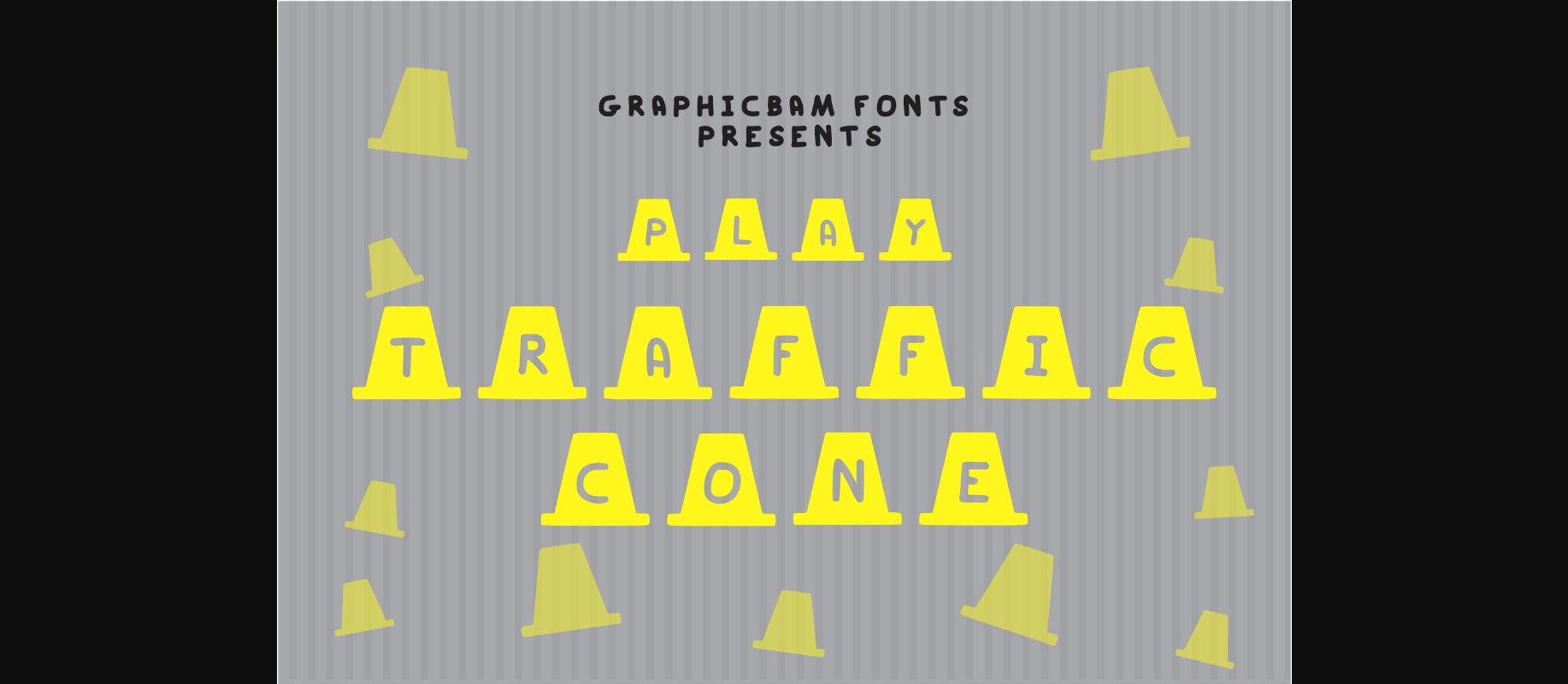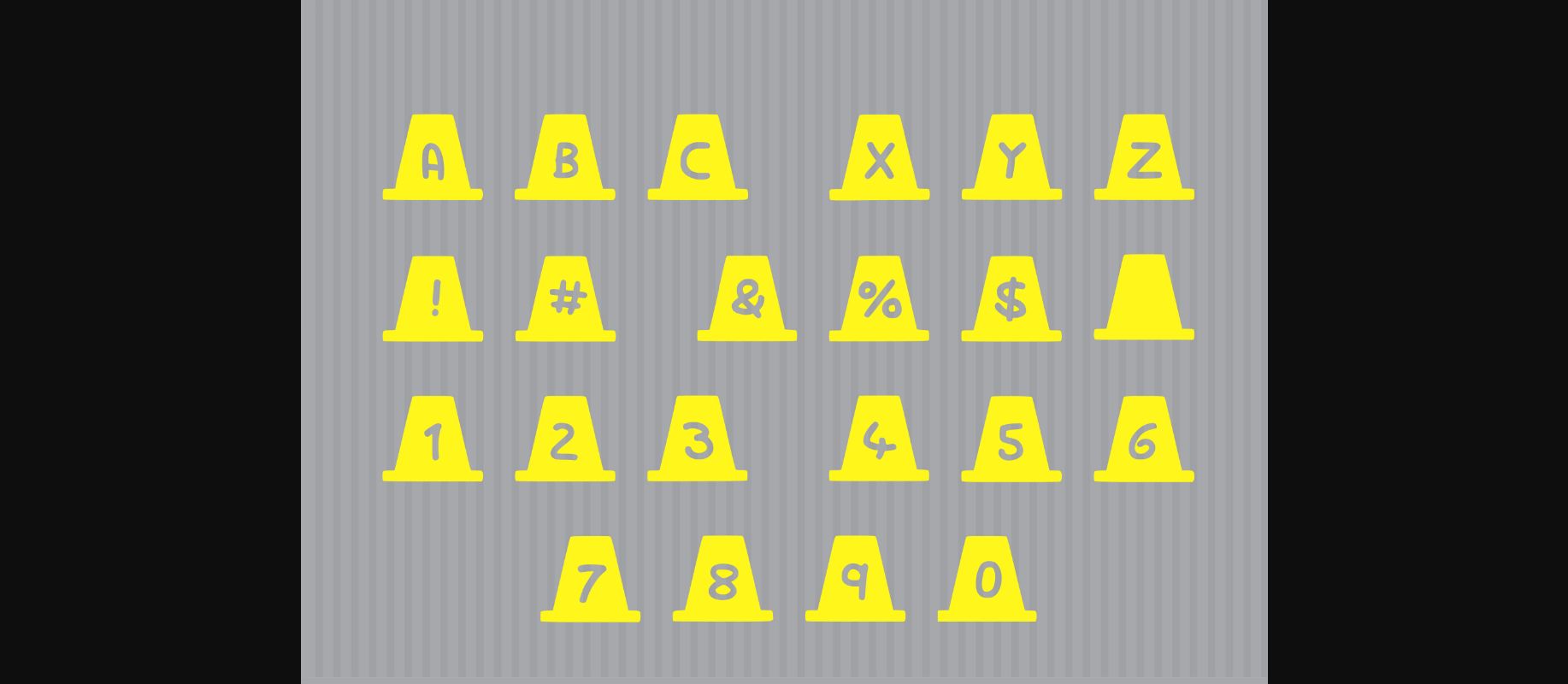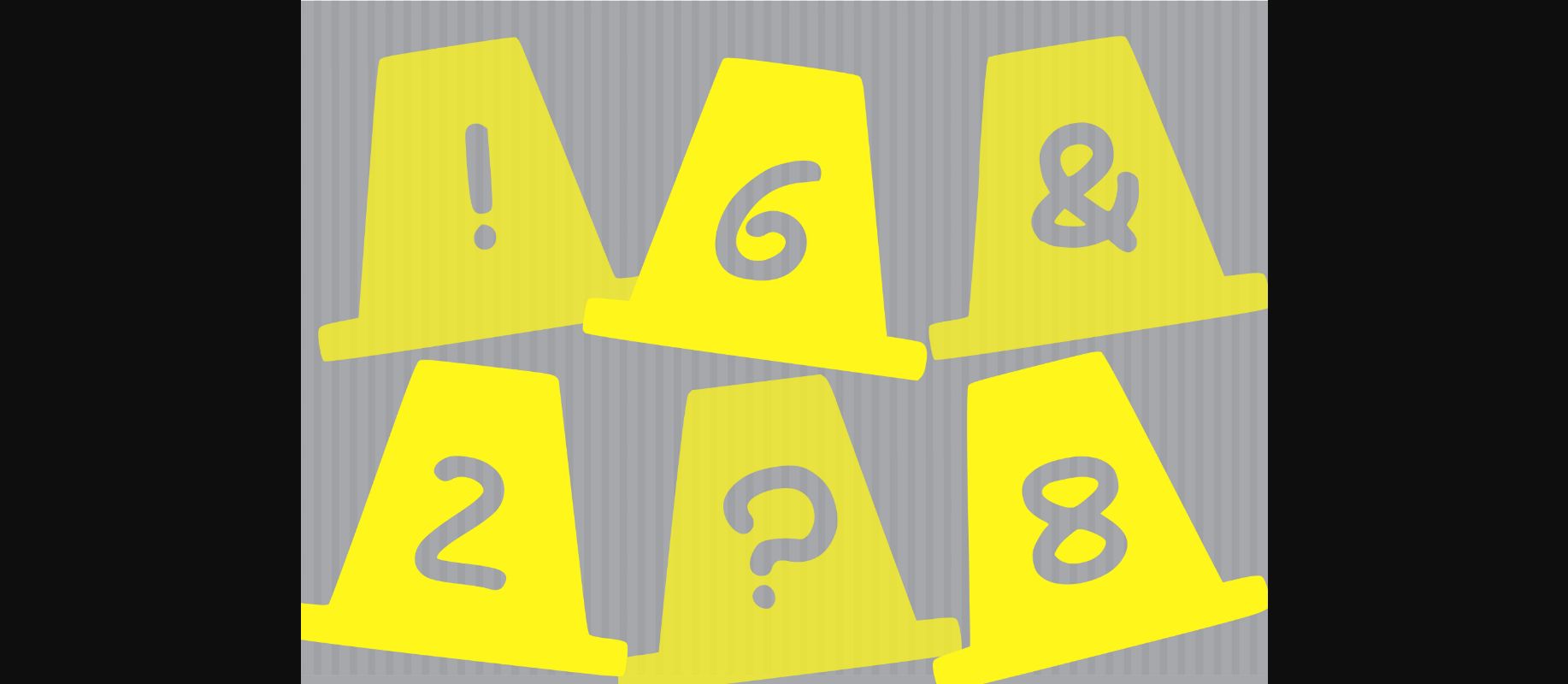
HomeDecorative FontsPlay Traffic Cone Font Decorative Fonts Play Traffic Cone Font FacebookXPinterestWhatsApp 1 of 5 ... Play Traffic Cone Font Poster 2... Play Traffic Cone Font Poster 3... Play Traffic Cone Font Poster 4... Play Traffic Cone Font Poster 5... About Play Traffic Cone Font Play Traffic Cone will guide your products on the road to success! Use this cool decorative font to add a fun feel to all your creative ideas! DOWNLOAD NOW People also explored North Pole Font ASL Line Font Goodnight Font Obligod Outline Medium Font Rosalinda Script Font MFC Aldercott Monogram Anime Font Black Sparrow Font Everyone Font 258 0 TagsPlay Traffic Cone Font Previous articlePlay Skull N Bones FontNext articlePlay Sun Font LEAVE A REPLY Cancel reply Comment: Please enter your comment! Name:* Please enter your name here Email:* You have entered an incorrect email address! Please enter your email address here Website: Save my name, email, and website in this browser for the next time I comment. Personal Use Free Zeshane Personal Use Free Read more about this font True Love Personal Use Free Read more about this font Hello Sarrah Personal Use Free Read more about this font Wadjet Personal Use Free Read more about this font BLOG Top 10 Handwritten Fonts That Elevate Your Designs Top 10 Handwritten Fonts That Will Elevate Your Designs Handwritten fonts bring a warm, personal touch to every creative project. Whether you're designing logos, invitations,... 5 Fonts That Will Dominate Design Trends in 2026 Where to Buy American Fonts Online in 2024 Using Fonts in Digital Marketing: Tips to Strengthen Your Brand Identity